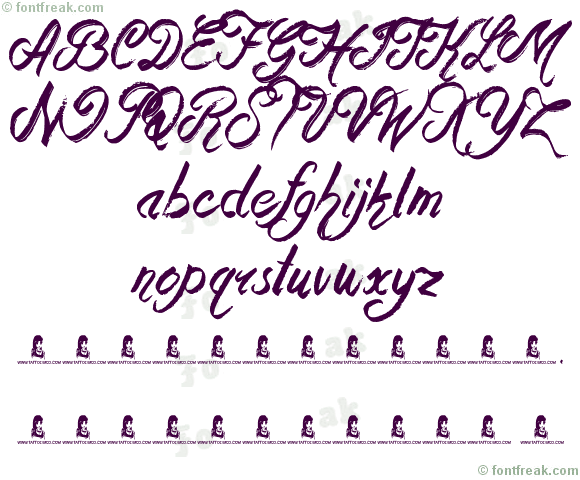
Rockers
About Rockers
The Rockers font by Jonathan S. Harris is a captivating display typeface that embodies a unique blend of elegance and ruggedness. This script font features fluid, cursive strokes that convey a sense of movement and vibrancy, making it an ideal choice for projects that require a touch of personality. The stroke weight varies throughout the letters, creating a dynamic contrast that enhances its visual appeal. The spacing is thoughtfully designed to maintain readability while allowing the letters to flow seamlessly into one another, resulting in an organic feel.
Rockers is best suited for a variety of creative applications. It shines in wedding invitations, where its romantic flair can elevate the overall design. Movie posters can also benefit from the bold character of this font, drawing attention and setting the mood for the film. Additionally, restaurant menus that want to convey a casual yet stylish atmosphere will find Rockers to be a perfect match. Small businesses looking to create memorable branding will appreciate its distinctive look, making products or services stand out in a crowded market. Content creators seeking to add a unique touch to their digital projects will also find this font extremely versatile.
What sets the Rockers font apart is its ability to convey emotion and style simultaneously. Its expressive design is not only visually striking but also adaptable, allowing it to fit seamlessly into a wide range of contexts. Whether you're designing for print or digital, Rockers is sure to leave a lasting impression.